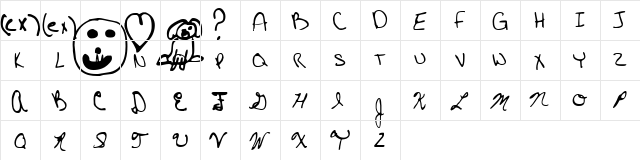
Whitney1 Hand
Design Context for Whitney1 Typeface
Whitney1 flows with the natural rhythm of handwritten lettering, making it ideal for designs that call for warmth and personal expression.
Font Pairing: Combine Whitney1 with a simple geometric sans for maximum contrast — the tension between flowing curves and clean structure is a classic typographic pairing.
Pro Tip: Use Whitney1 for short runs of text — names, titles, or taglines. Extended body copy in script faces tires the eye quickly.